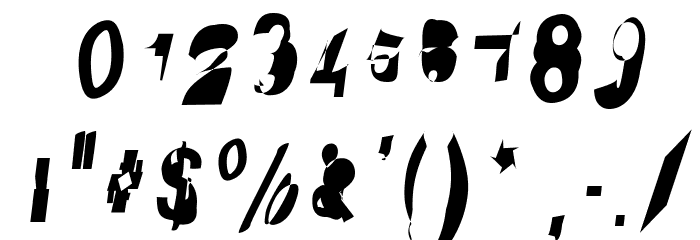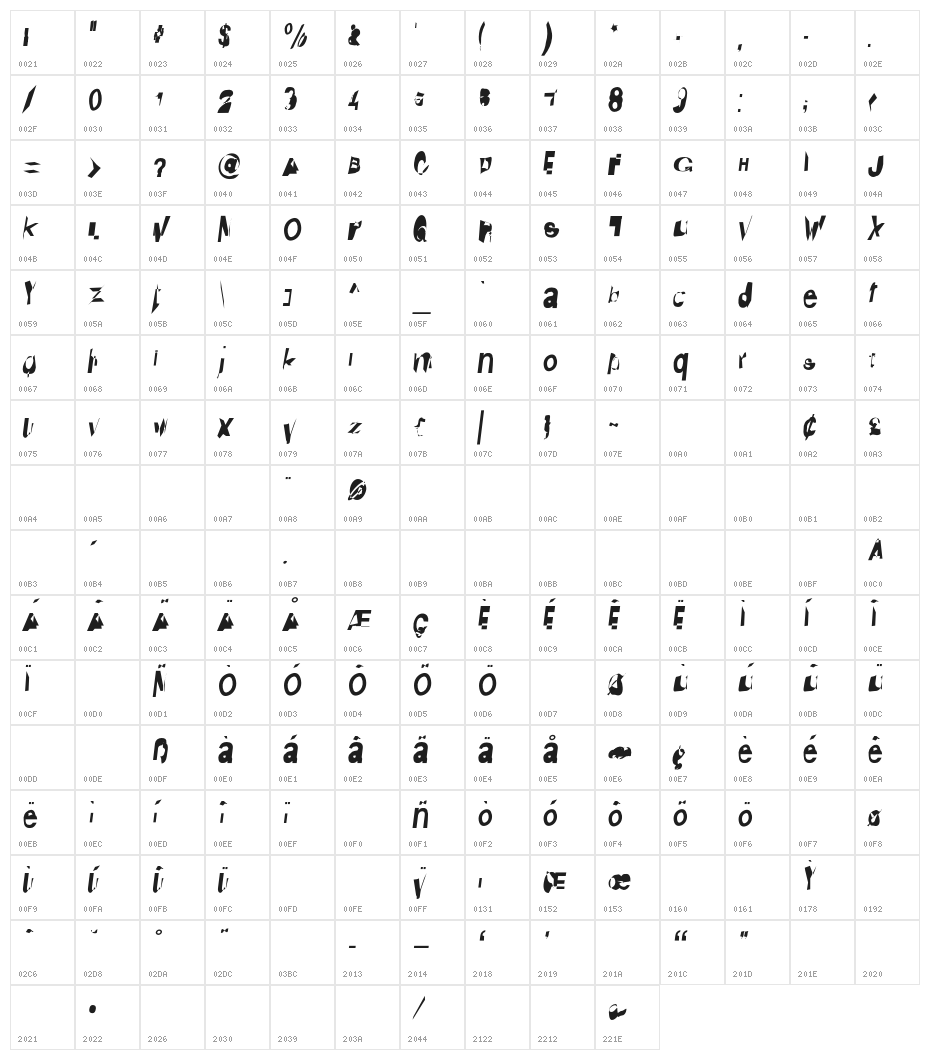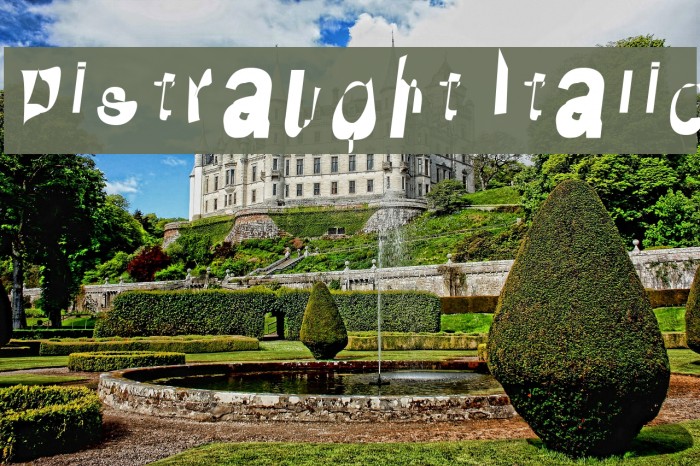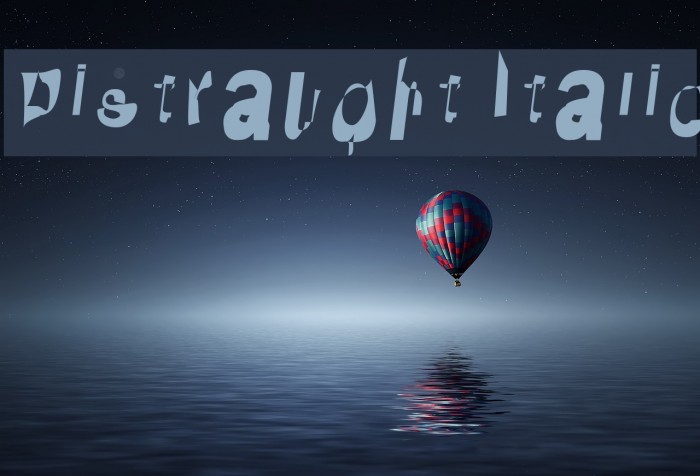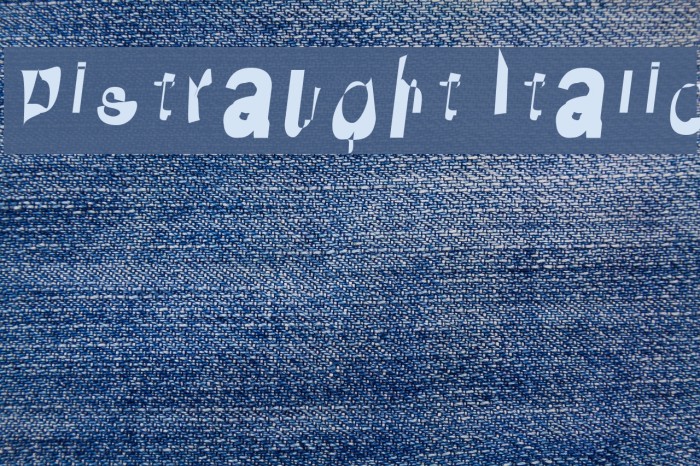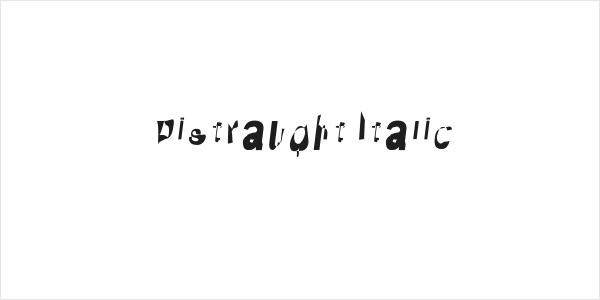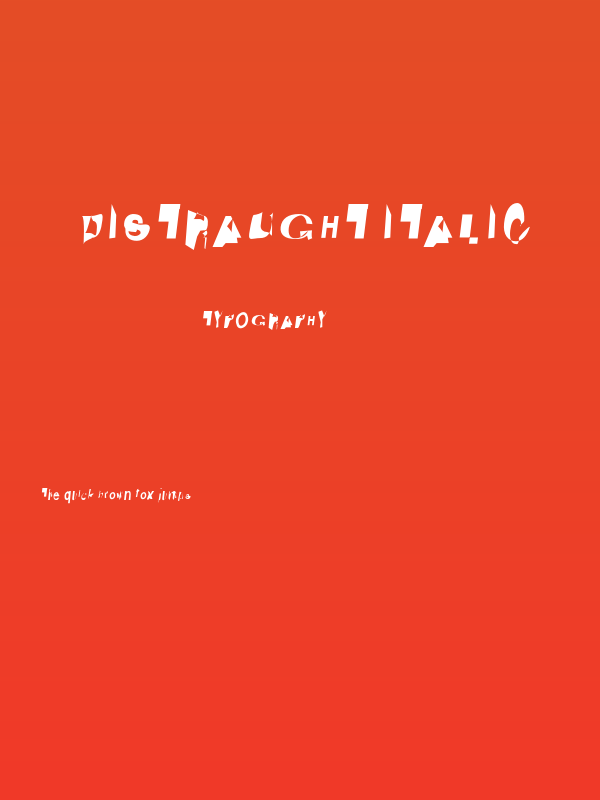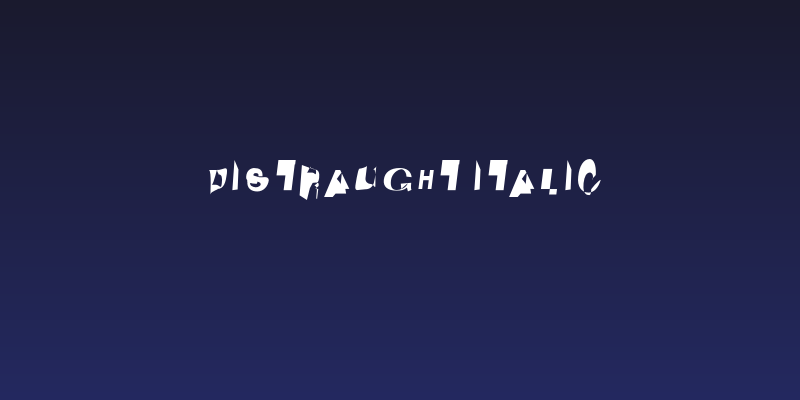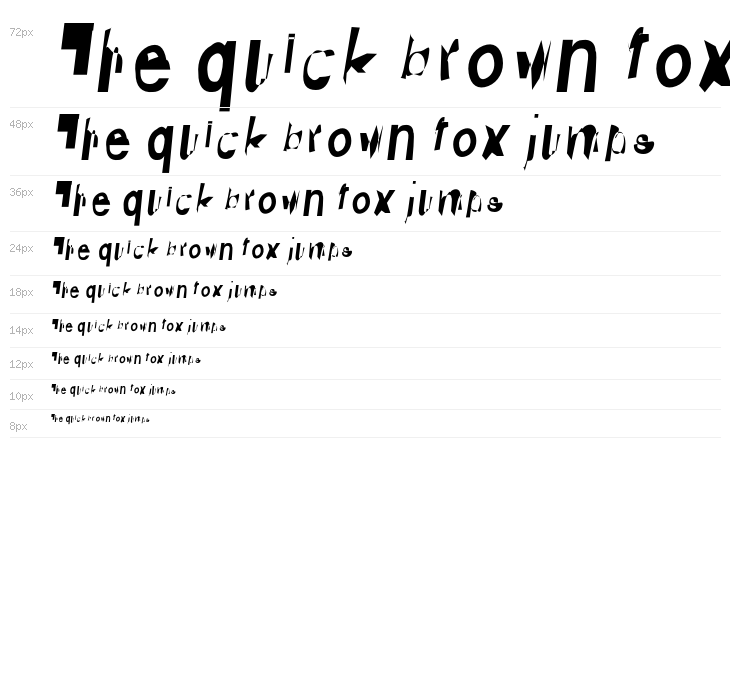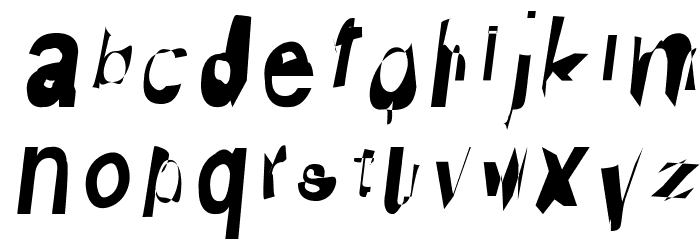
Distraught Italic Font
Distraught Italic Description
This font exhibits a highly distressed and fragmented style, with each character appearing as if it has been shattered or torn apart. The letters maintain a consistent italic slant, adding a dynamic and chaotic energy to the overall design. Despite the fragmented appearance, the characters remain recognizable, offering a unique blend of readability and artistic expression. The uppercase and lowercase letters, along with numerals and special characters, all share this distinctive fragmented aesthetic, making it suitable for projects that require a bold and unconventional look.
| Overall Style | Modern, Distressed |
| Proposed Projects | Ideal for edgy graphic design projects, album covers, posters, and any creative work that seeks to convey a sense of disruption or avant-garde style. |